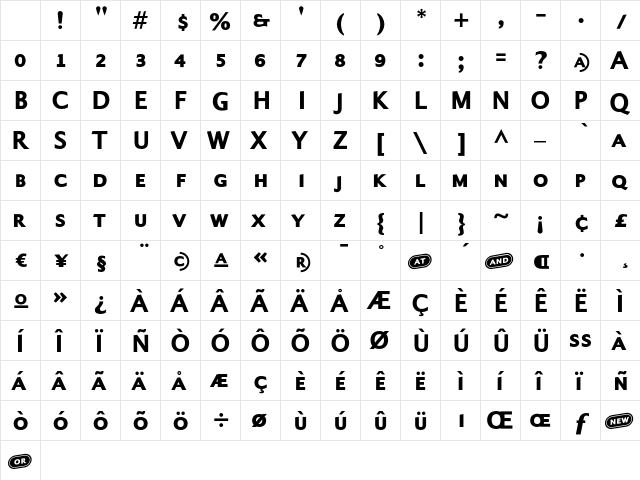
Alphabet4 BoldSmallCaps
Style: BoldSmallCaps
Alphabet4 Family
Design Context for Alphabet4
Alphabet4 is a composed and adaptable typeface that performs quietly and consistently across a wide range of design contexts. Its bold stroke weight gives it real presence on the page.